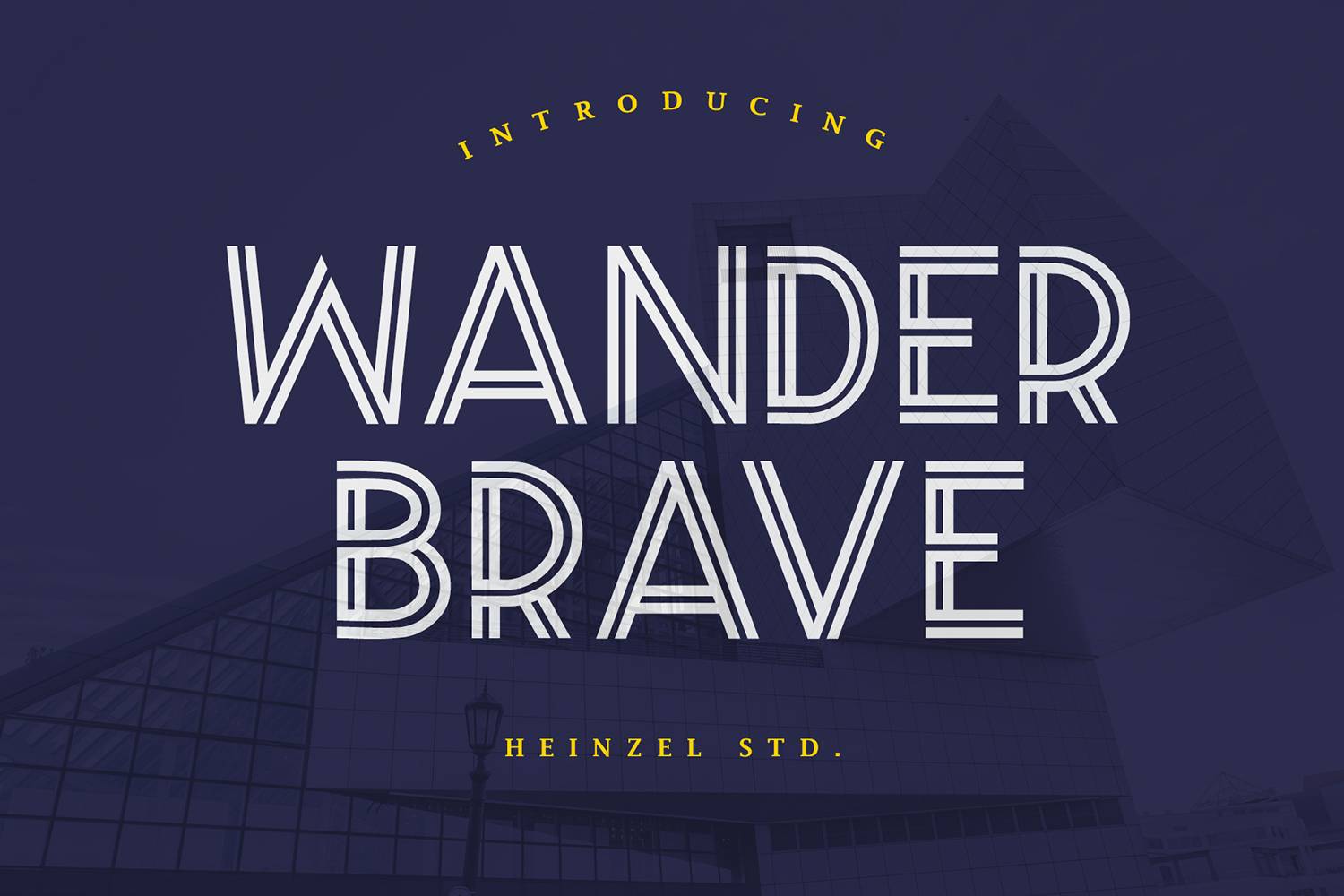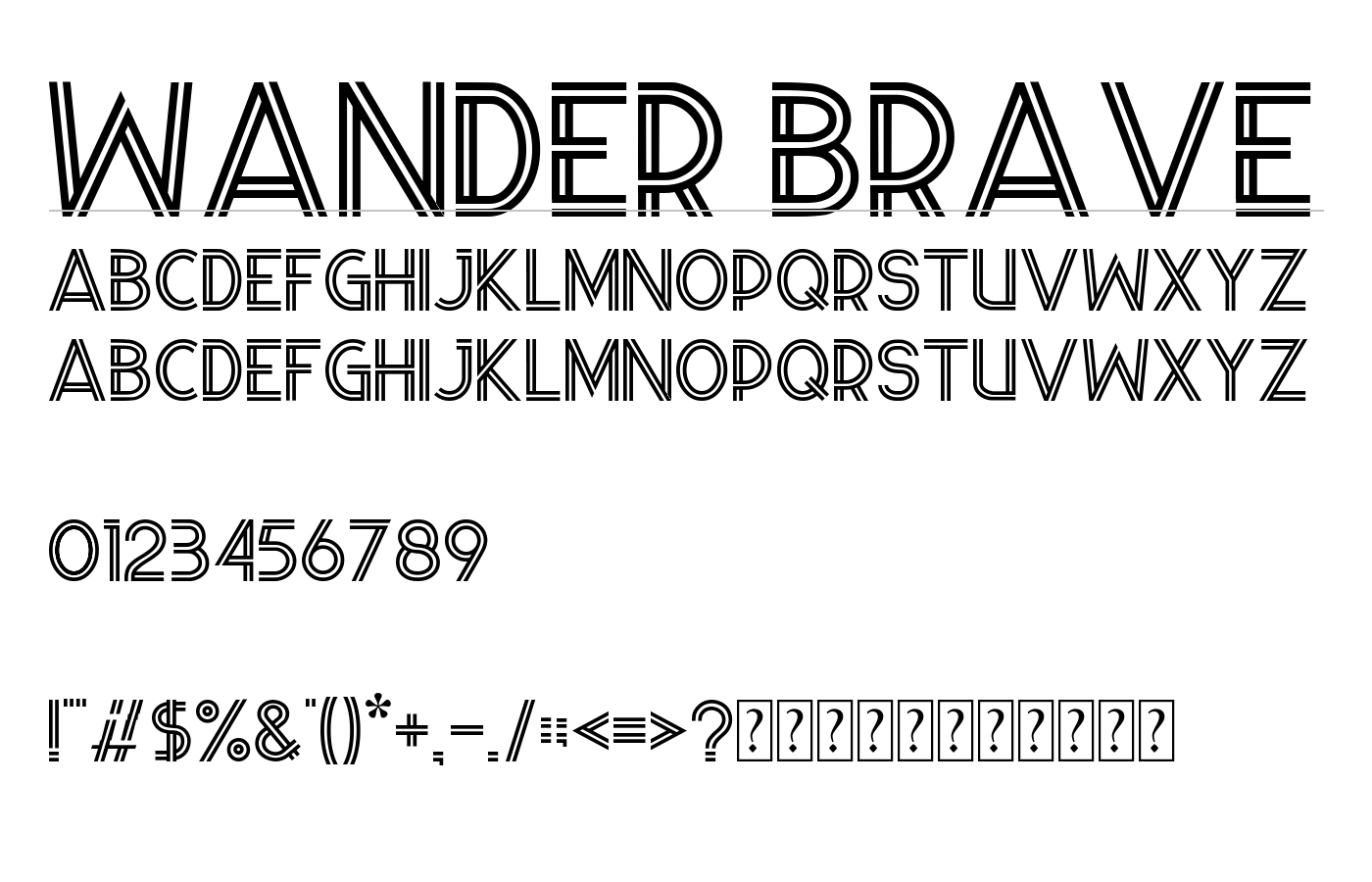
Wander Brave is a modern, geometric sans-serif font featuring a distinctive layered outline effect that creates a bold and playful visual impact. With its tall, narrow letterforms and clean lines, this font works perfectly for eye-catching headlines, logos, and creative branding projects that want to convey a sense of adventure and contemporary style. Its unique design makes it ideal for fashion, posters, and editorial use where personality and flair are key.
Wander Brave Font
About Wander Brave Font